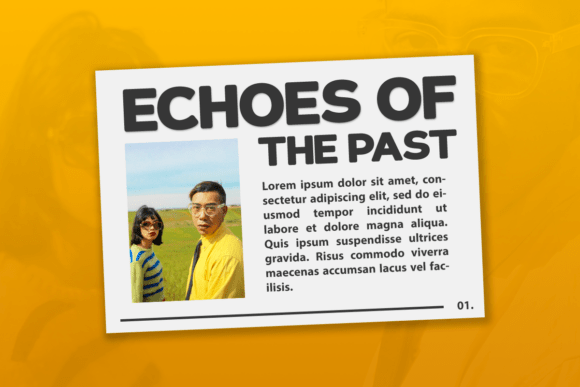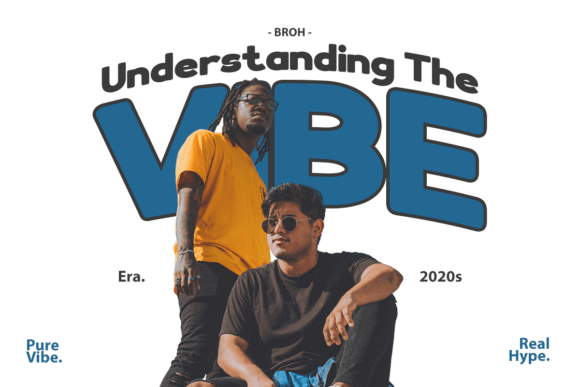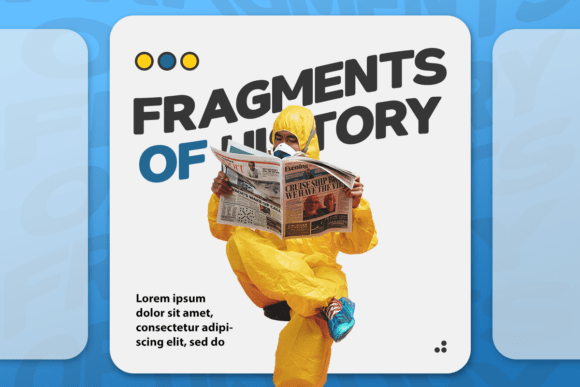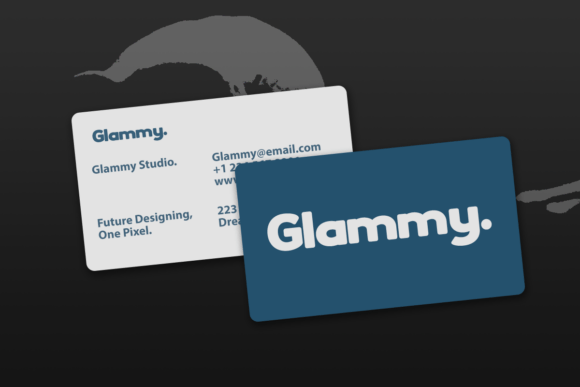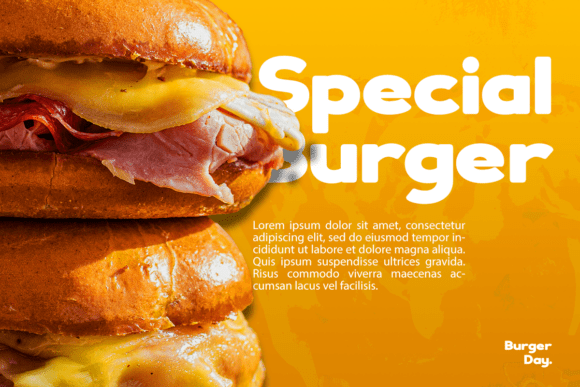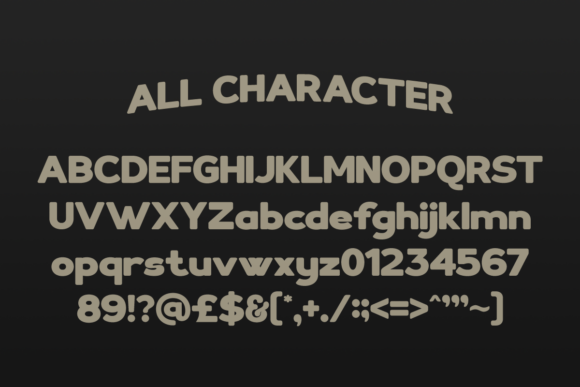
Introduction to Onyra Font
Onyra is a bold and rounded sans serif font designed to radiate warmth, friendliness, and clarity.
With its smooth curves and geometric balance, it perfectly fits modern branding, packaging, and playful logo design Its soft yet confident look makes it ideal for kids fonts, fun fonts, and feminine visual identities.
Key Features of Onyra Font
Why Choose Onyra Font?
Onyra Font offers exceptional quality and versatility, making it a valuable addition to your design toolkit. Whether you’re creating for personal projects or commercial use, Onyra Font delivers professional results.